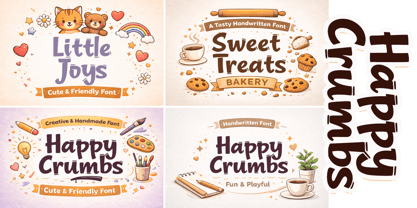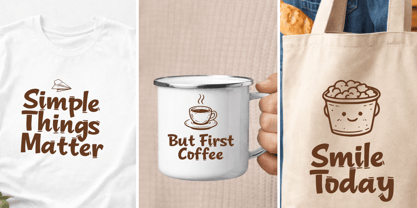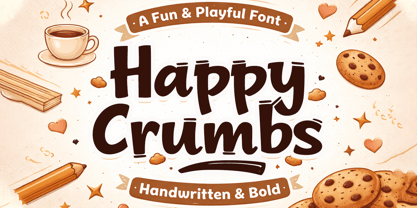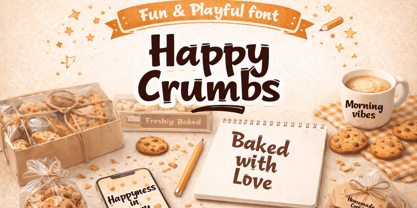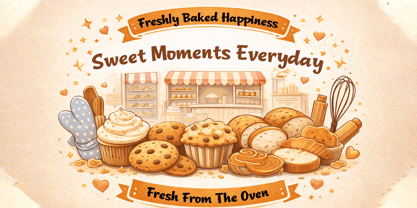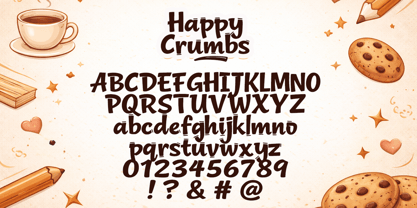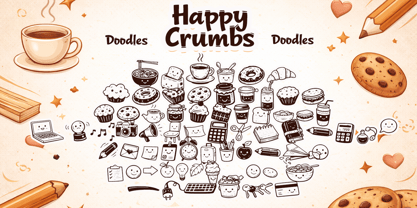
Happy Crumbs
by Cocodesign
The Happy Crumbs Font Family was designed by Muhammad Zaini and published by Cocodesign. Happy Crumbs contains 5 styles and family package options.
Happy Crumbs – Playful Handwritten Font Happy Crumbs is a fun, playful, and warm handwritten font, complete with extra doodles that add a playful, creative, and lively feel. The letterforms are bold, rounded, and expressive, making them easy to read and attractive at various sizes. This font is suitable for designs that require a cheerful, relaxed touch and full of visual character.